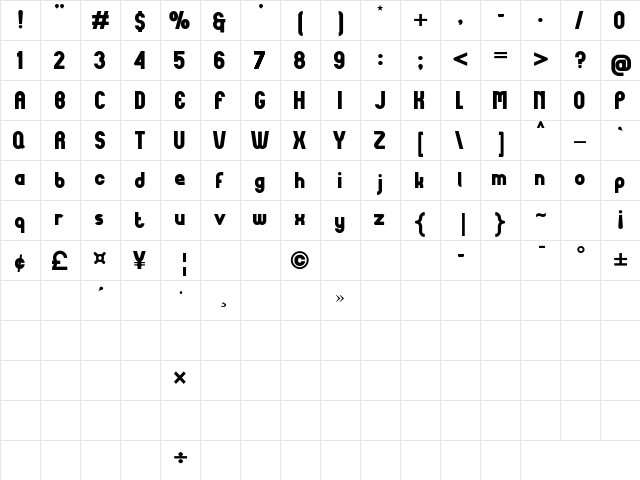
Cardigan Regular
Design Context for Cardigan Typeface
Cardigan takes a measured approach to typography — its balanced proportions and neutral character make it a reliable workhorse for both digital and print work.
Pro Tip: Use Cardigan in both headline and body roles to test its range before committing to a single application.